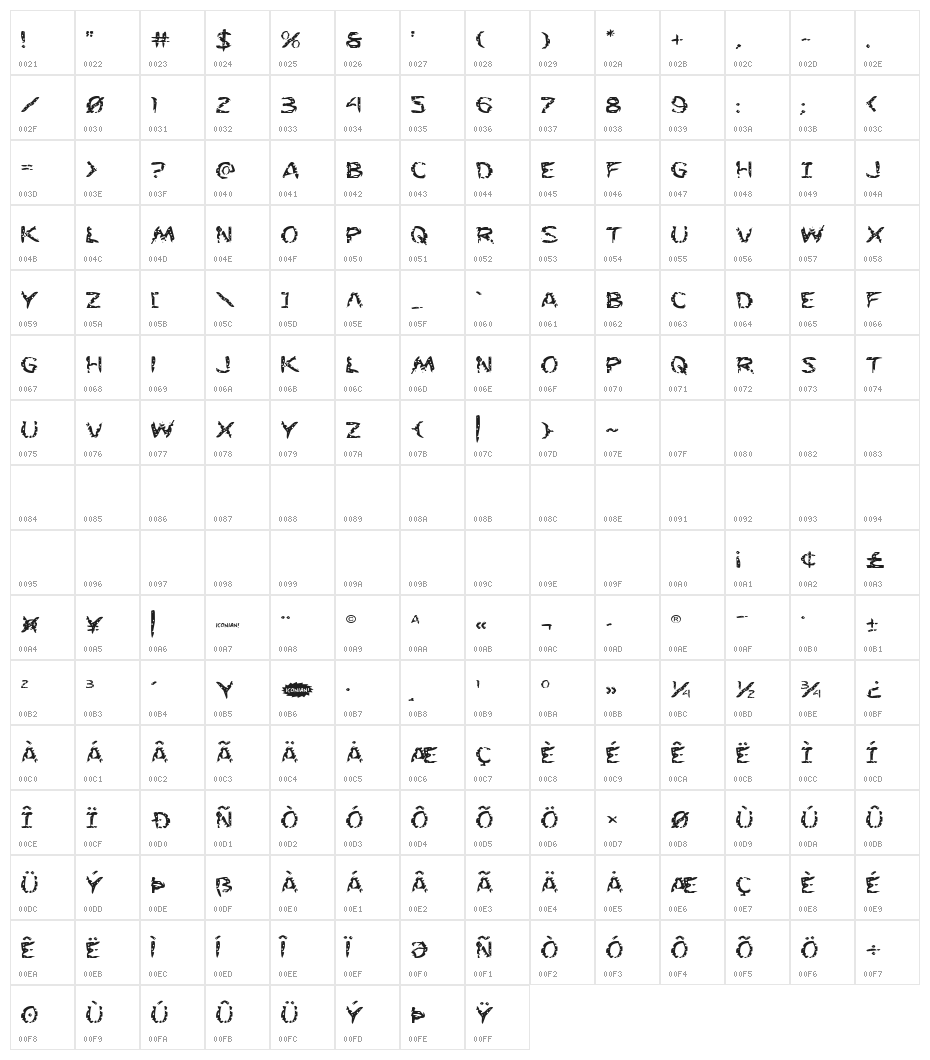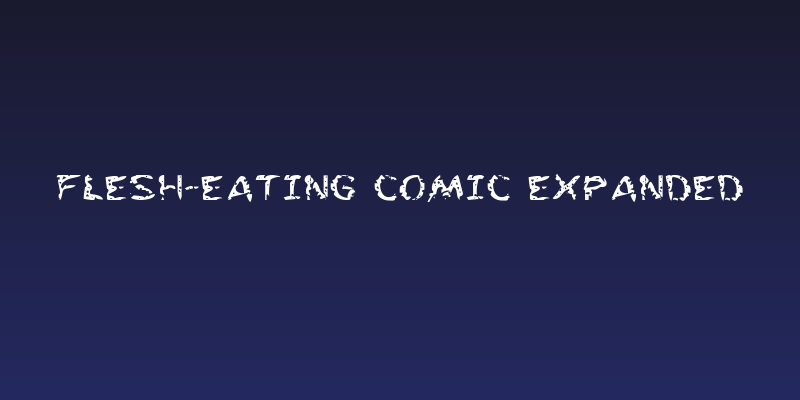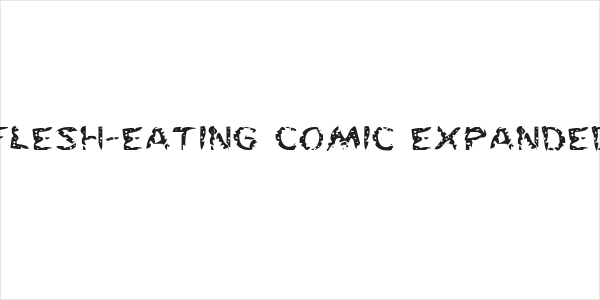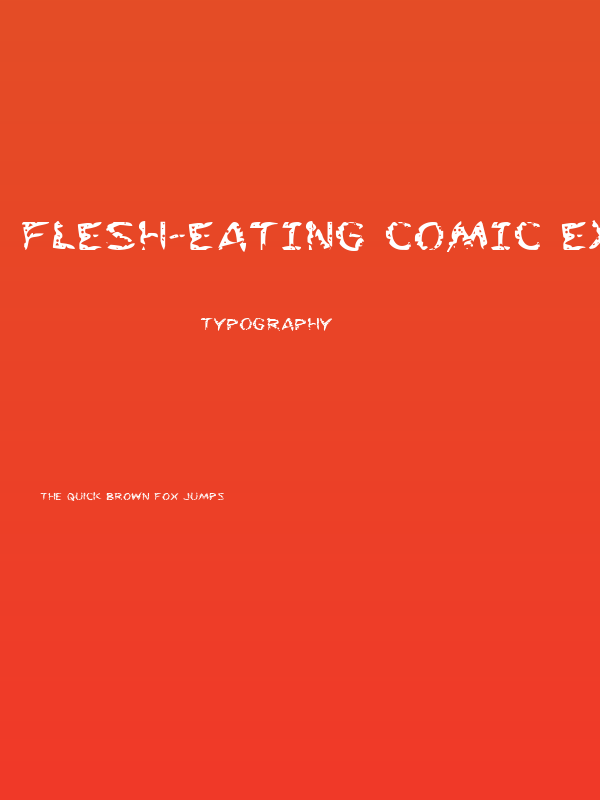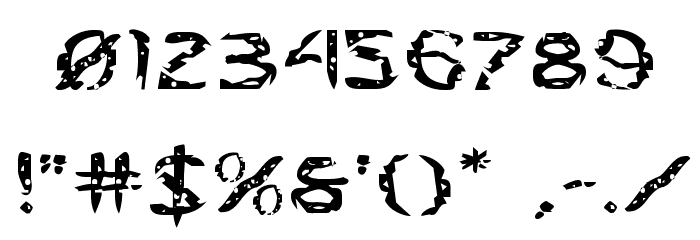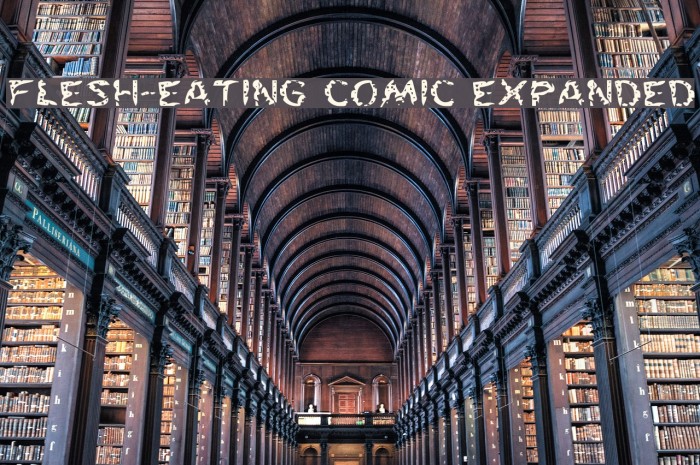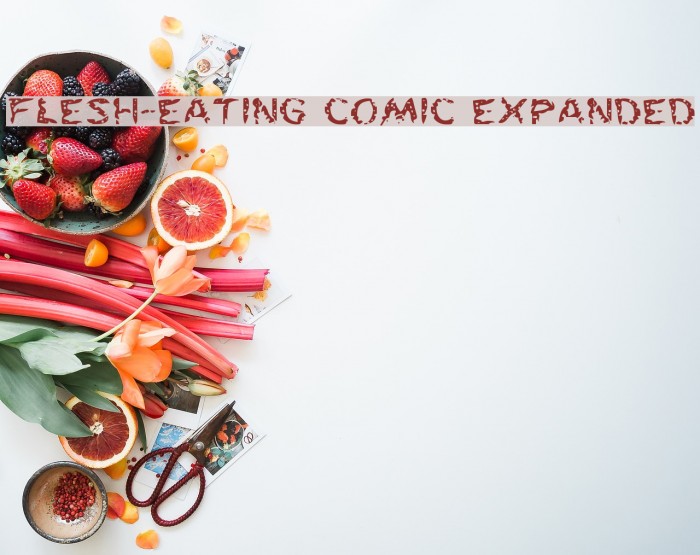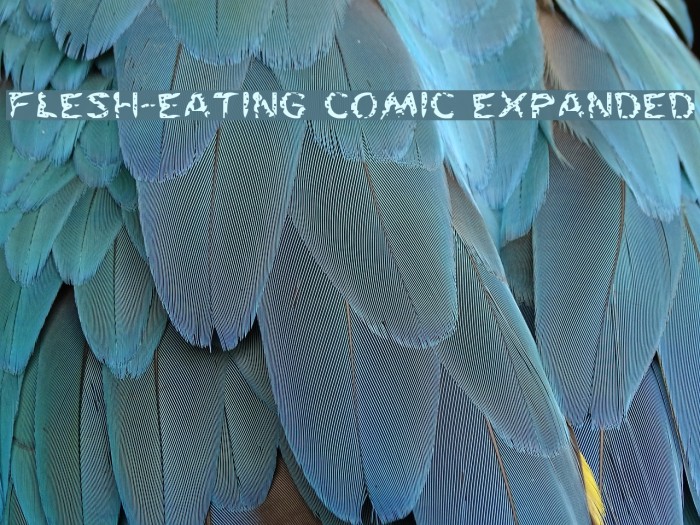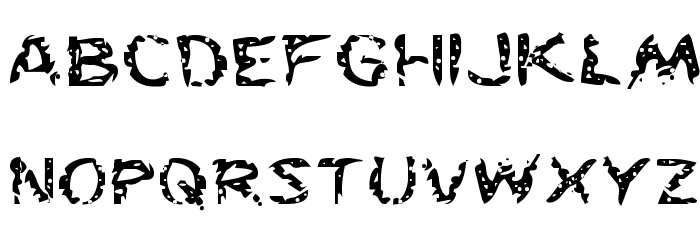
Flesh-Eating Comic Expanded Font
Flesh-Eating Comic Expanded Description
This font features a bold and aggressive style with jagged, irregular edges that give it a distressed, worn appearance. The characters are designed to look as if they have been eroded or eaten away, creating a unique and eye-catching effect. The uppercase and lowercase letters maintain a consistent style, with each character displaying a rough, textured look. The numbers and special characters follow the same design principles, ensuring a cohesive appearance across all glyphs. This font is perfect for projects that require a dramatic and edgy aesthetic.
| Use Case | Headlines, Posters, Themed Events |
| Proposed Projects | Ideal for horror-themed posters, edgy graphic designs, Halloween invitations, and any project requiring a bold, distressed aesthetic. |